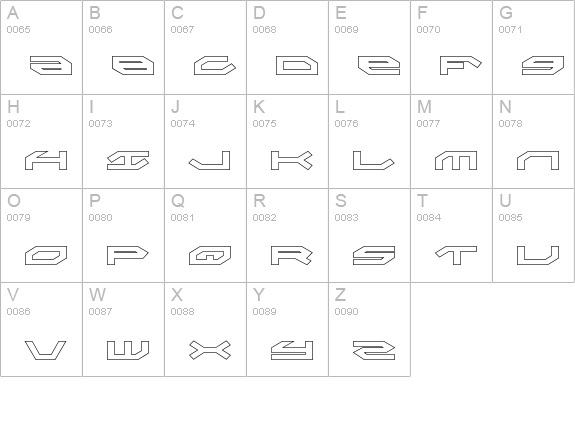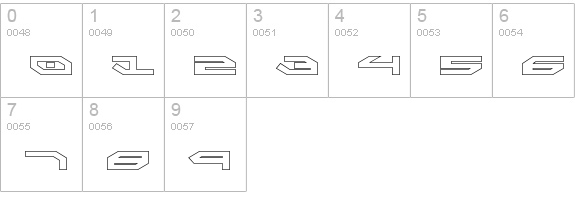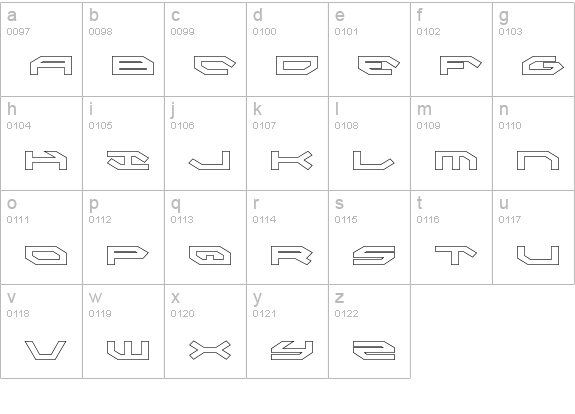
Taskforce Outline is a striking and modern typeface that exudes strength and efficiency. This font features clean lines and sharp edges, making it perfect for conveying a sense of precision and authority in your design projects. Whether you're creating bold headlines, sleek logos, or impactful posters, Taskforce Outline is sure to make a statement. What's even better is that Taskforce Outline is available for free download at FontsMarket.com. This means you can easily access this powerful font and use it in your projects without any cost. Don't miss out on the opportunity to enhance your designs with Taskforce Outline's bold and commanding aesthetic. Download it today and take your design game to the next level!